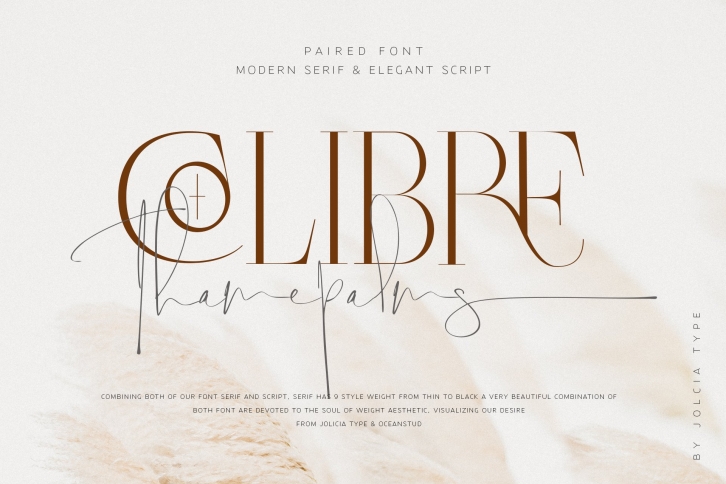
Here we try to combine our 2 font collections to provide more references, namely colibre bristole and Thamepalms
Colibre Bristole Pro is a serif font family that crafted with precision, Colibre Bristole consist of 9 styles from thin to black. has 49 ligatures to make writing more interactive
Multilanguange Alternates PUA Encoded Font Family totals 9 fonts
Thamepalms Font is pure hand strokes that are inspired by pure handwriting from natural hands, elegant strokes bring out authentic writing, coupled with letter endings with long lines to enhance your Type